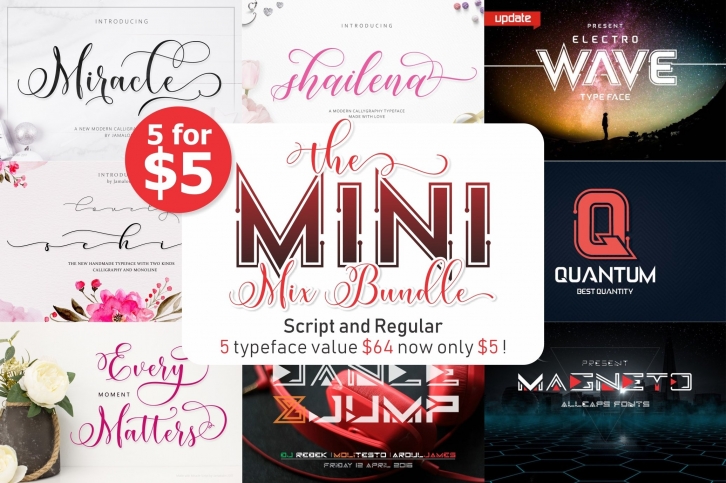
The Mini Mix Bundle 5 for $5 is a great font that was designed by jamalodin. Imagine the amount of combinations you can create using this font! The archive is 6.94 MB and it was released on September 24, 2020. The Mini Mix Bundle 5 for $5 looks beautiful on wedding invitations, greeting cards, logos, posters, labels, t-shirt designs, logos, business cards and is perfect for use in ink or watercolor works, fashion, magazines, packaging and food menus, children's books and more!